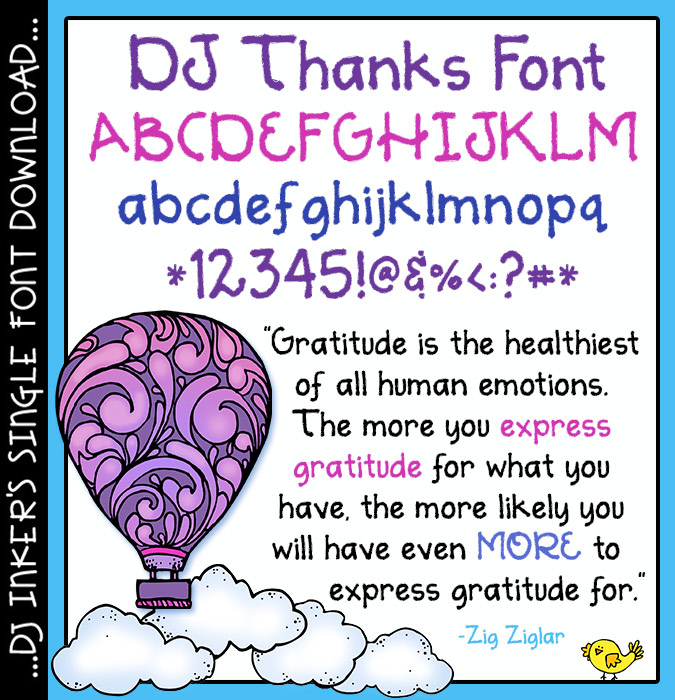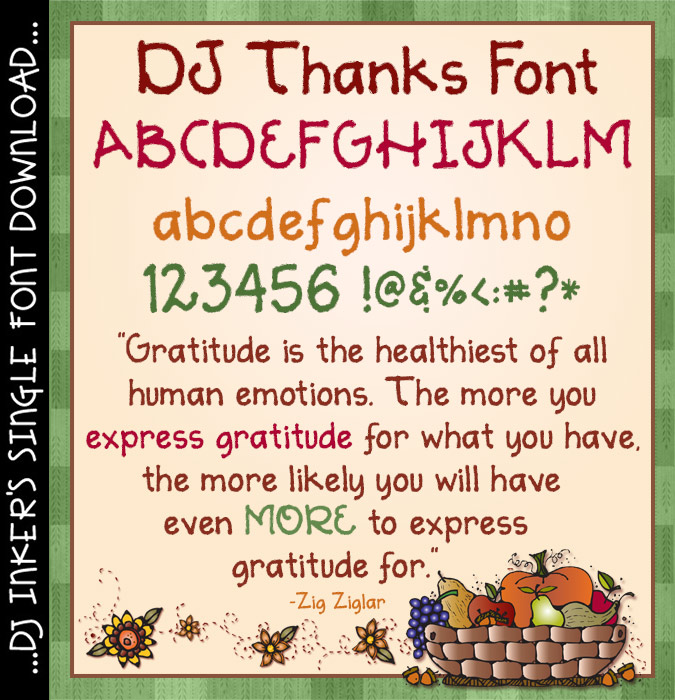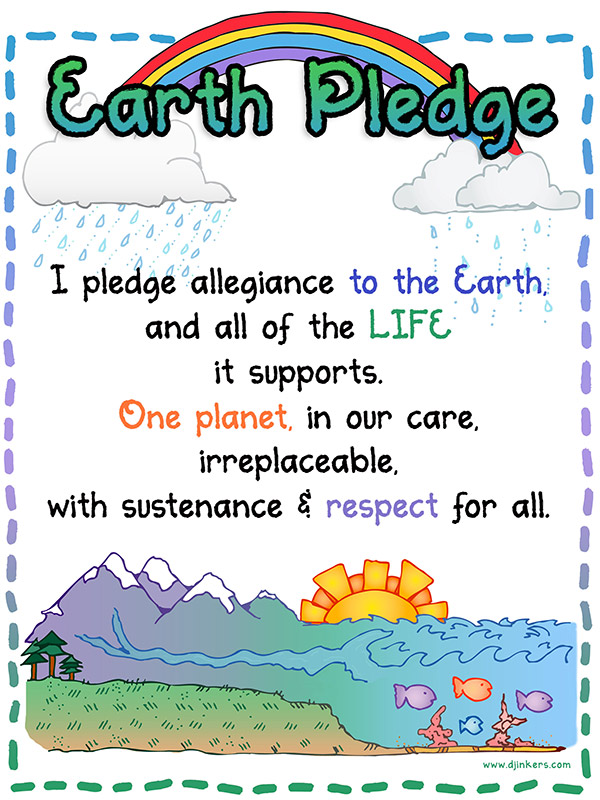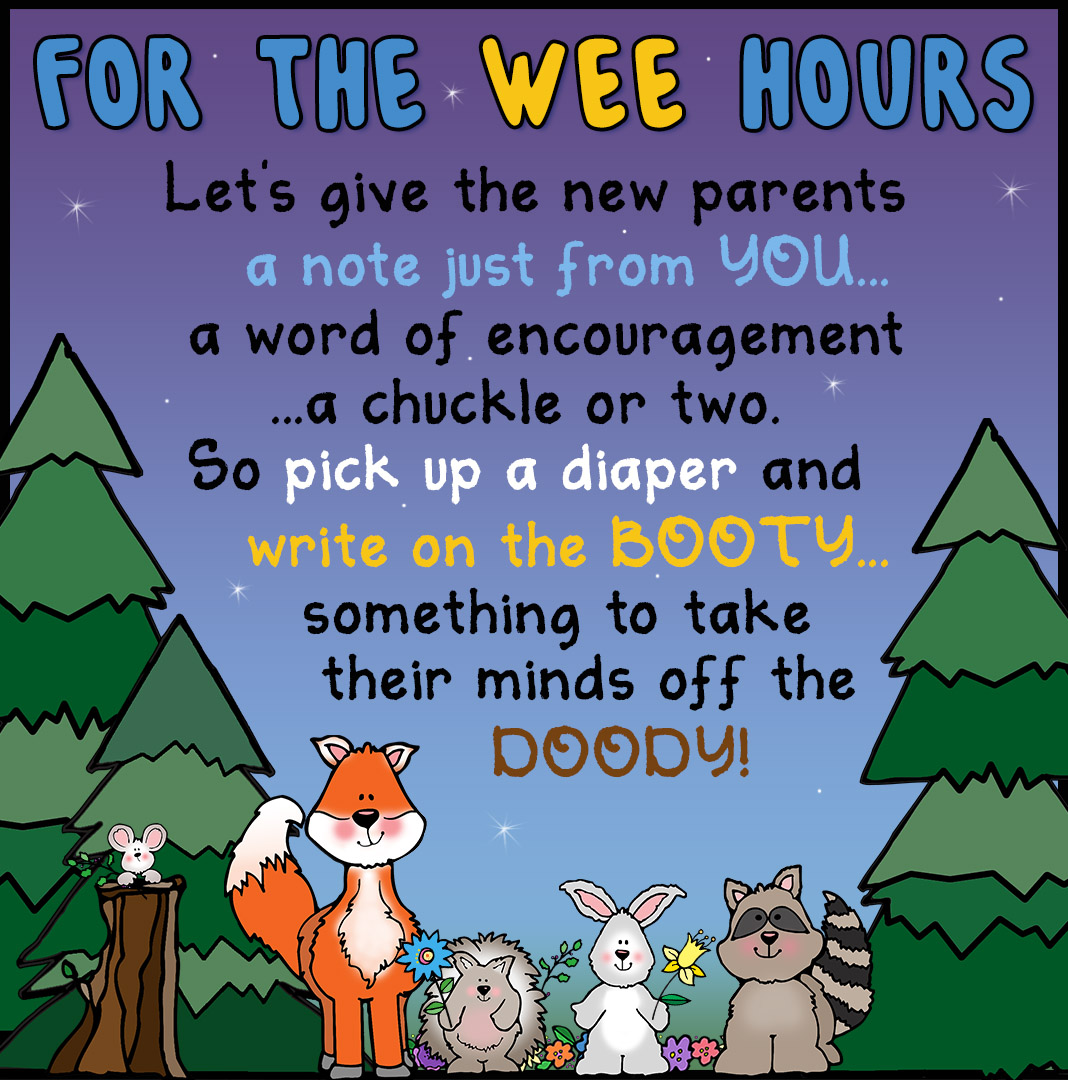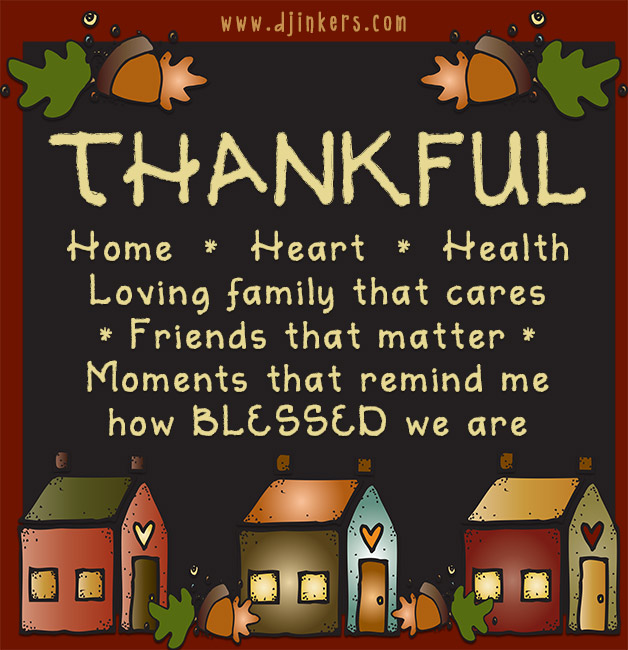
DJ Thanks Font Download
DJ Thanks is a bold, strong font, yet soft & graceful
at the same time. This lovely lettering types in a beautiful chalky texture
that's perfect for thank you cards, family notes & newsletters, memory
books, Thanksgiving projects and so much more.
Also includes basic Spanish characters.